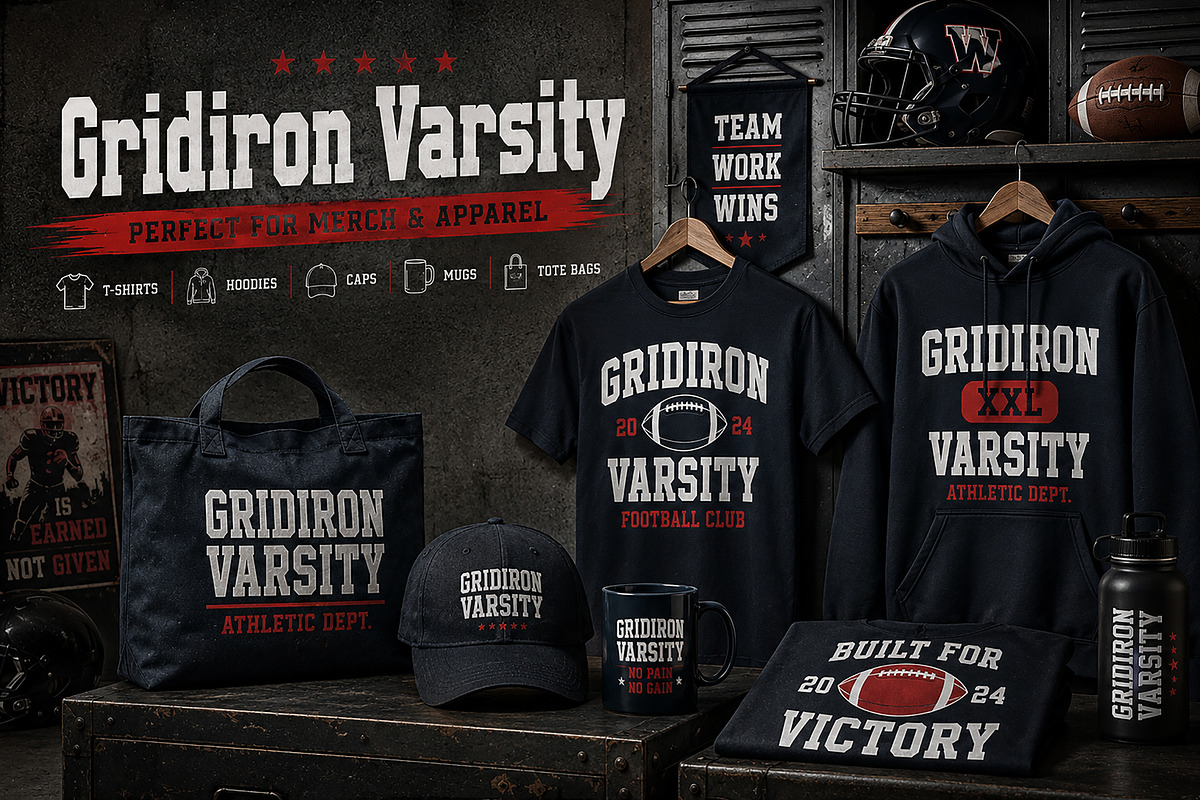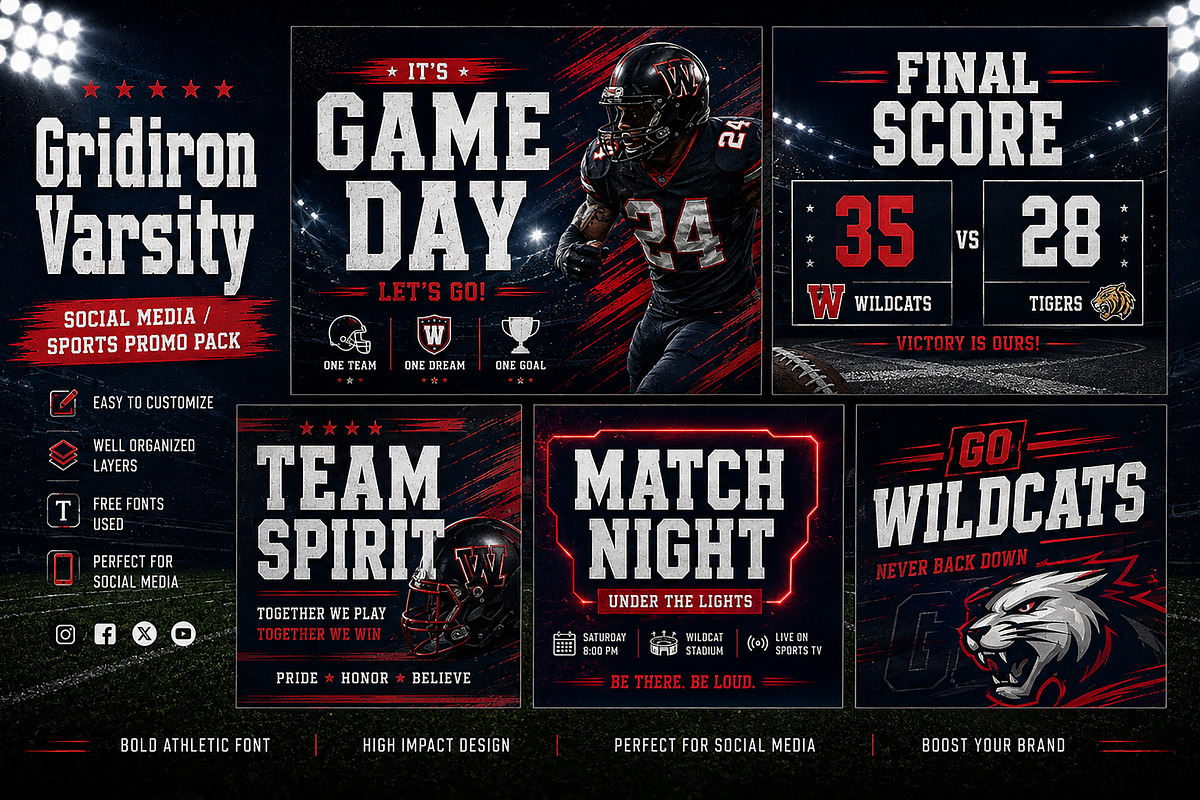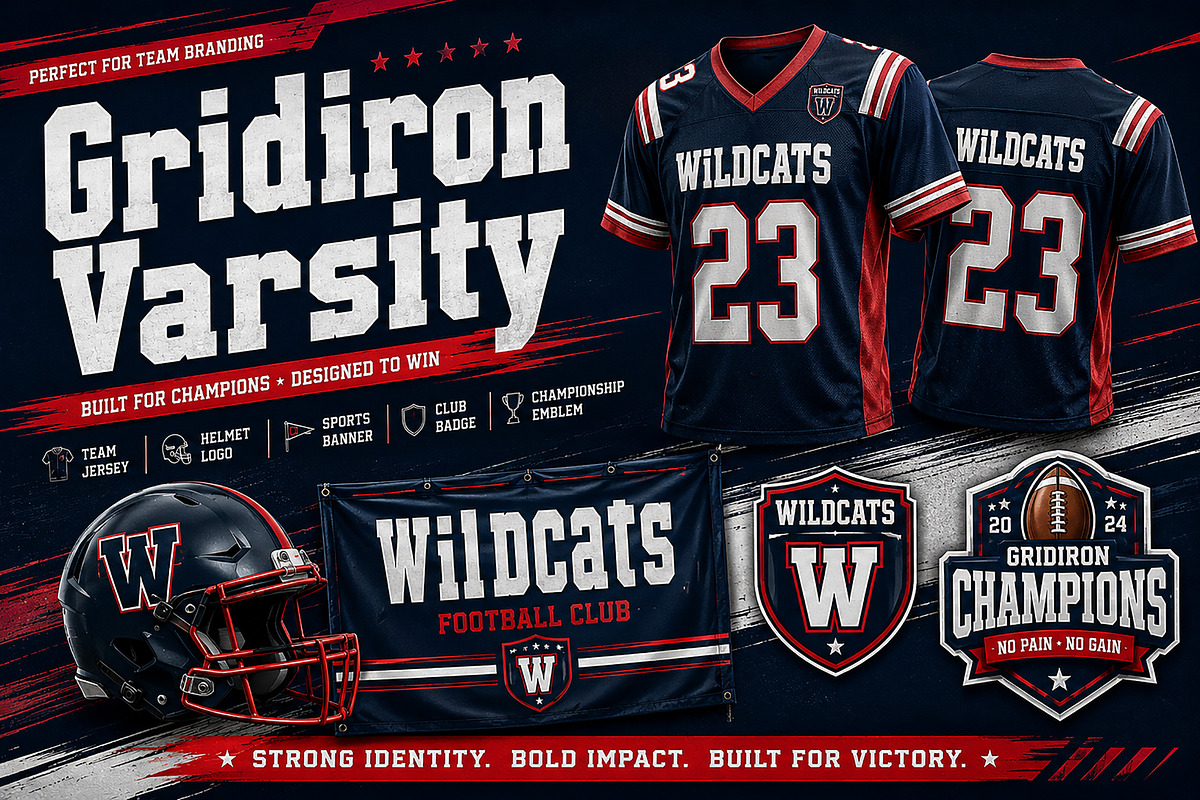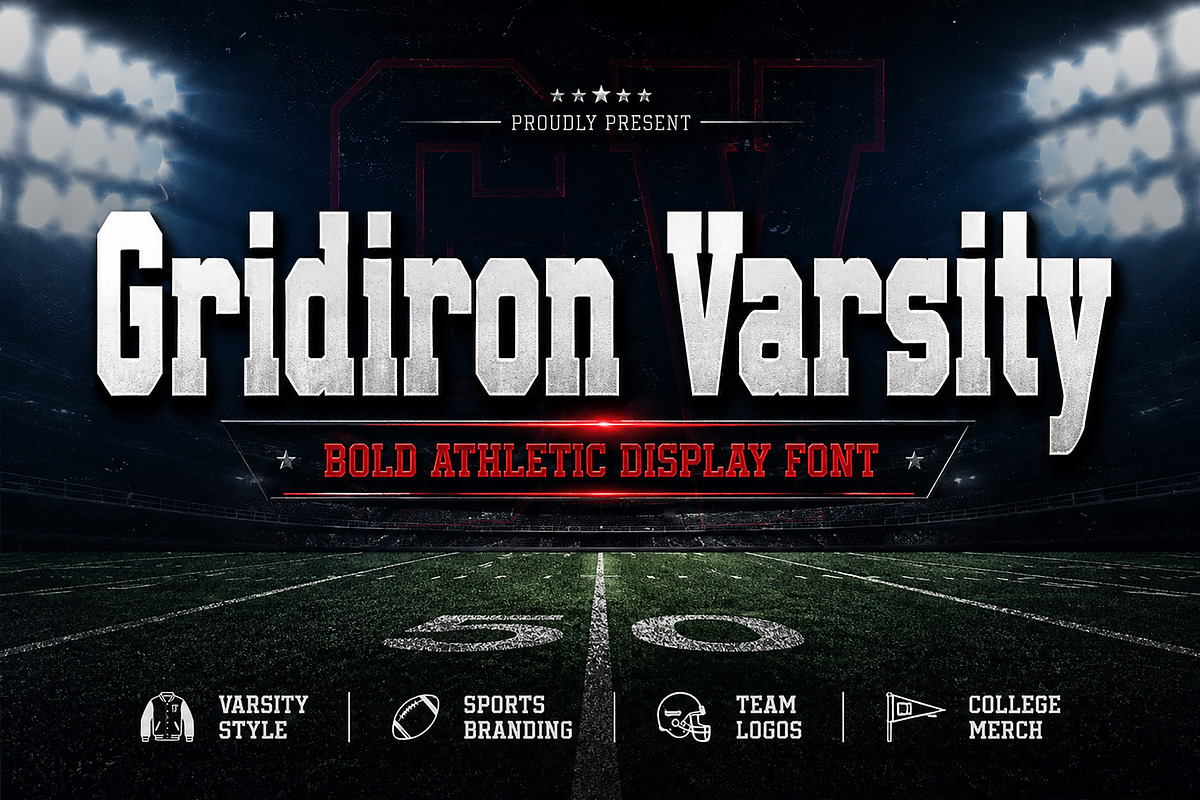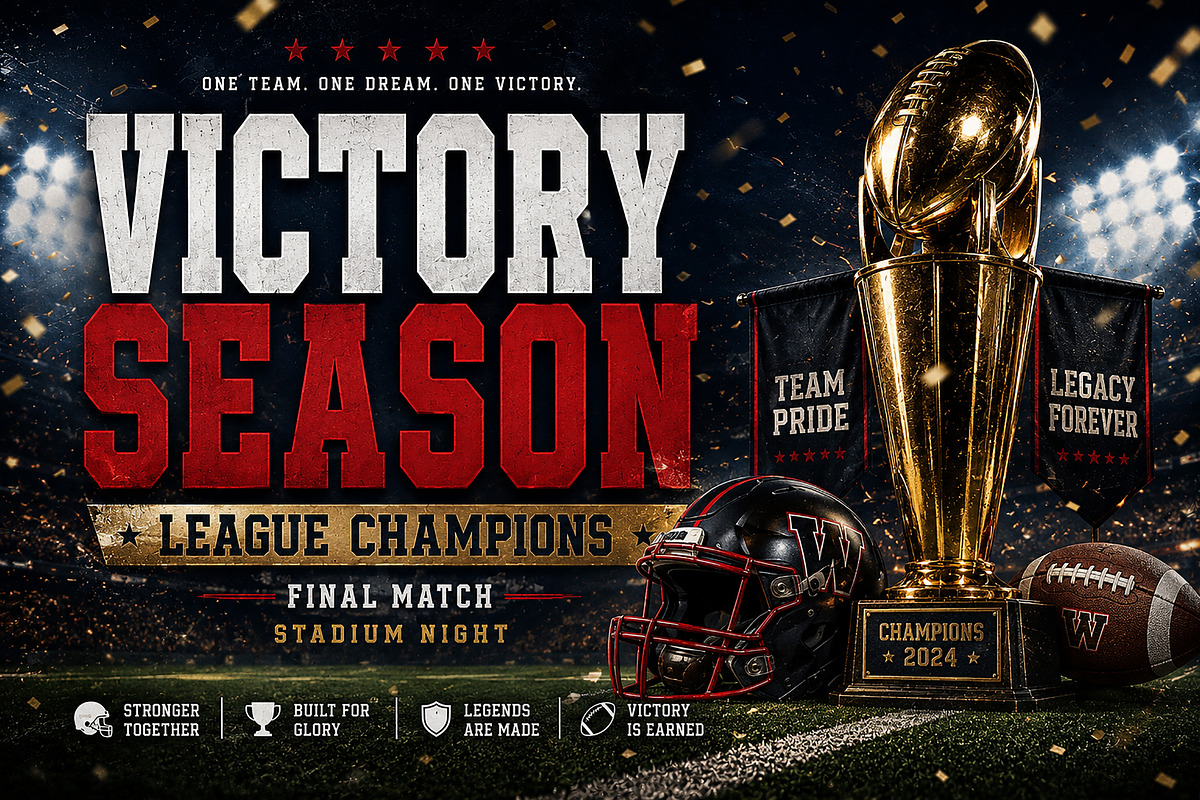
Gridiron Varsity
Bold Athletic Display Font
Gridiron Varsity is a powerful athletic display font inspired by classic varsity lettering, football culture, and championship branding. Built with strong geometric shapes and bold competitive energy, this font is perfect for sports logos, team branding, jerseys, posters, merchandise, and college-inspired designs.
Designed to bring strength, confidence, and team spirit into your projects, Gridiron Varsity delivers a bold impact with its sharp edges, solid structure, and vintage athletic aesthetic. Whether you're creating football club logos, championship banners, game-day posters, sportswear branding, or varsity merchandise, this font gives your design a professional winning look.
Perfect for sports designers, apparel brands, event promotions, esports teams, gym branding, and university-themed projects.
Sports Logos
Team Branding
Football Posters
Varsity Jackets
Jerseys & Uniforms
Championship Banners
College Merchandise
Esports Branding
Gym Apparel
Social Media Sports Graphics
Stickers & Merchandise
Athletic Event Promotions
Gridiron Varsity is your go-to font for creating bold, energetic, and championship-ready designs.